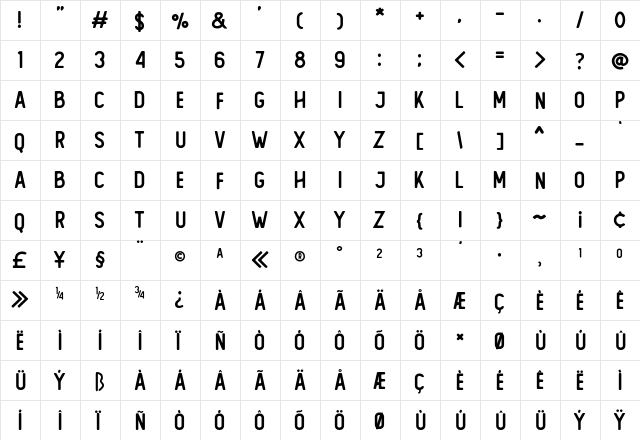
The Foregen Regular
| Foundry | Vultype Co |
| Designer | Vultype Co |
Design Context for The Foregen Typeface
The Foregen takes a measured approach to typography — its balanced proportions and neutral character make it a reliable workhorse for both digital and print work.